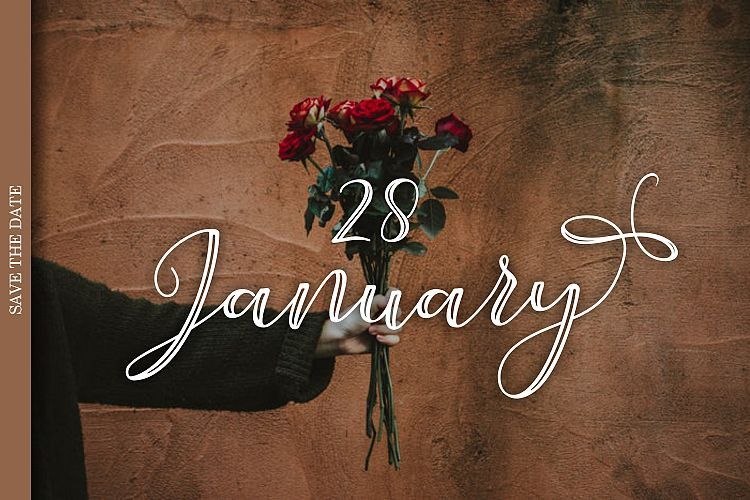
Under Script Font
The Under Script is a script and calligraphy font with a clean handwritten style. It comes with plenty of exchange characters. The font has lovely curves of calligraphy styled that could make each layout stand out. Under Script is the precise font for all of your amusing designs. Under Script become designed with the aid of using Captain Jack. The creator works at employerWdfont. The subfamily of this font is Regular. Under Script is loose for private use only.
You can also additionally make it extra attractive via way of means of including an italic texture vibe. The Typeface is a great preference for brand spanking new designers who’re nonetheless getting their ft moist with fonts. You’re in all likelihood questioning what layout this font could be to be had, and the solution is that it is going to be had in each TTF and OTF format. The Typeface can be used on almost any device, from a laptop to a laptop.
You can use the Under Script to create exciting designs, covers, keep and keep call and logos. It’s best for branding projects, homeware designs, product packaging, call cards, invitation cards, etc. Simply as a fashionable textual content overlay to any historical past photograph or somethingrequiring a sprinkle of elegance.